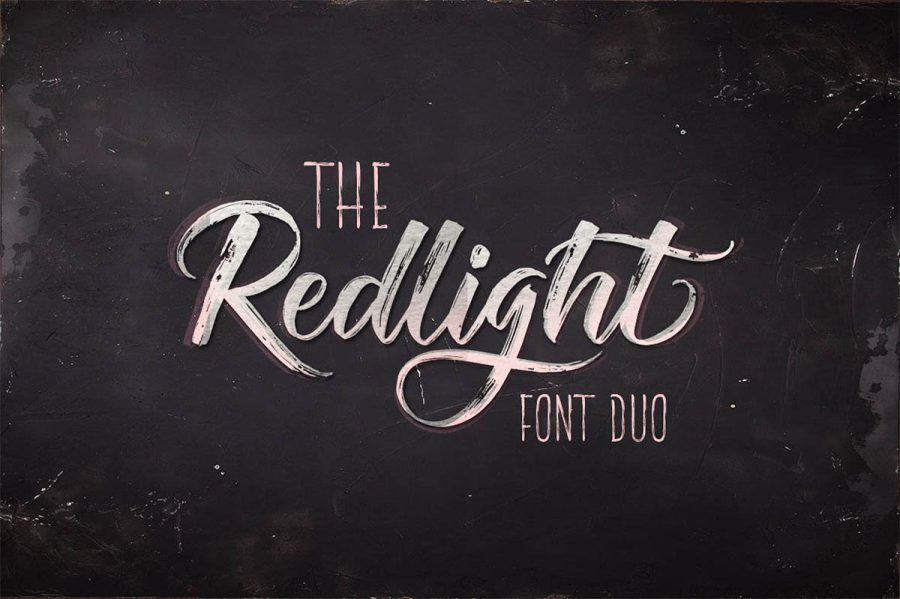
The Redlight Script Free Demo Script is a beautiful typeface coming from Rabittype. This one is created out of a natural hand-lettering brush that makes it even more authentic and unique. Therefore, this script font is suitable for wedding invitation, greeting cards, T-Shirt, Logo or any design that you create. So, download now and start creating your own gorgeous design!